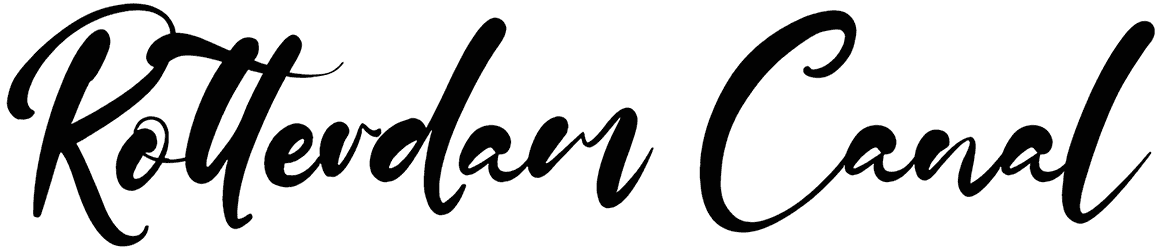
Rotterdam Canal Font
While you may have a lot of script fonts in your collection, we suggest you look at Rotterdam Canal from a different perspective. This calligraphy font has excellent elegance and can show the right feeling and appearance for your message.
Although this handwritten font may be challenging to read, it has beautiful accents that can be a welcome addition to your designs on greeting cards, posters, and invitations.